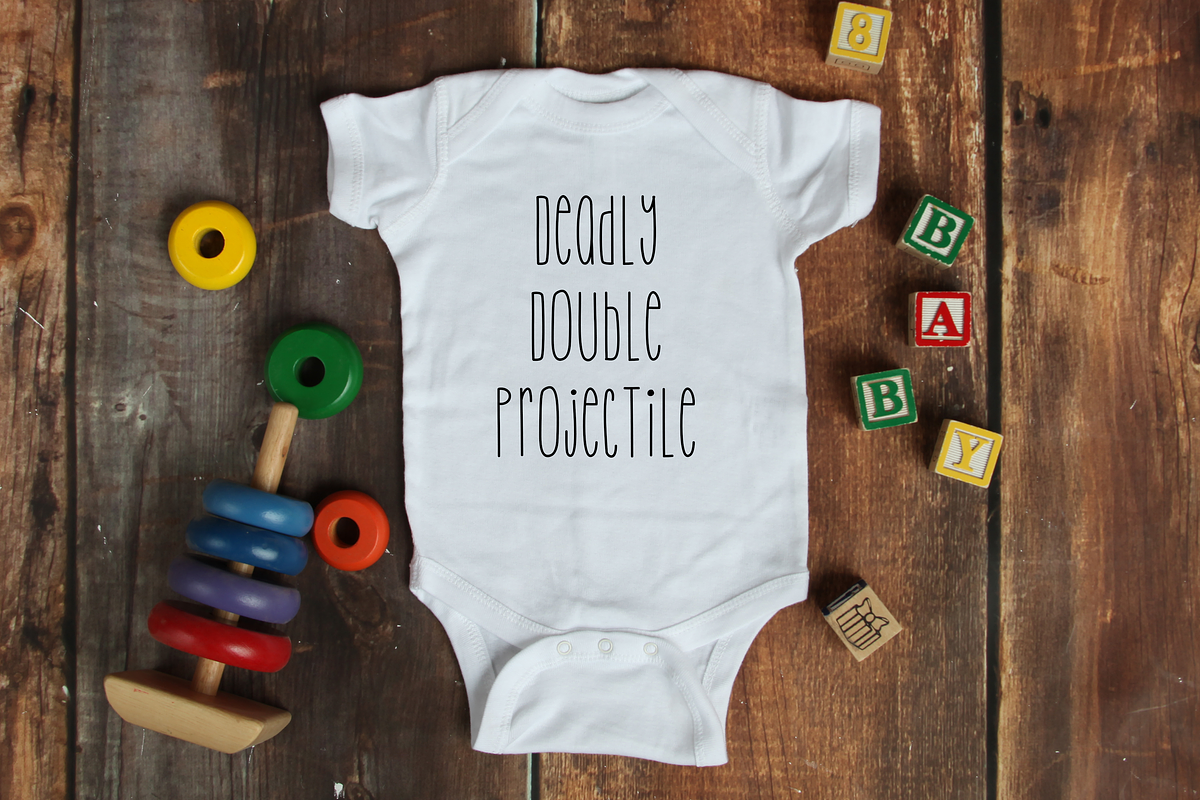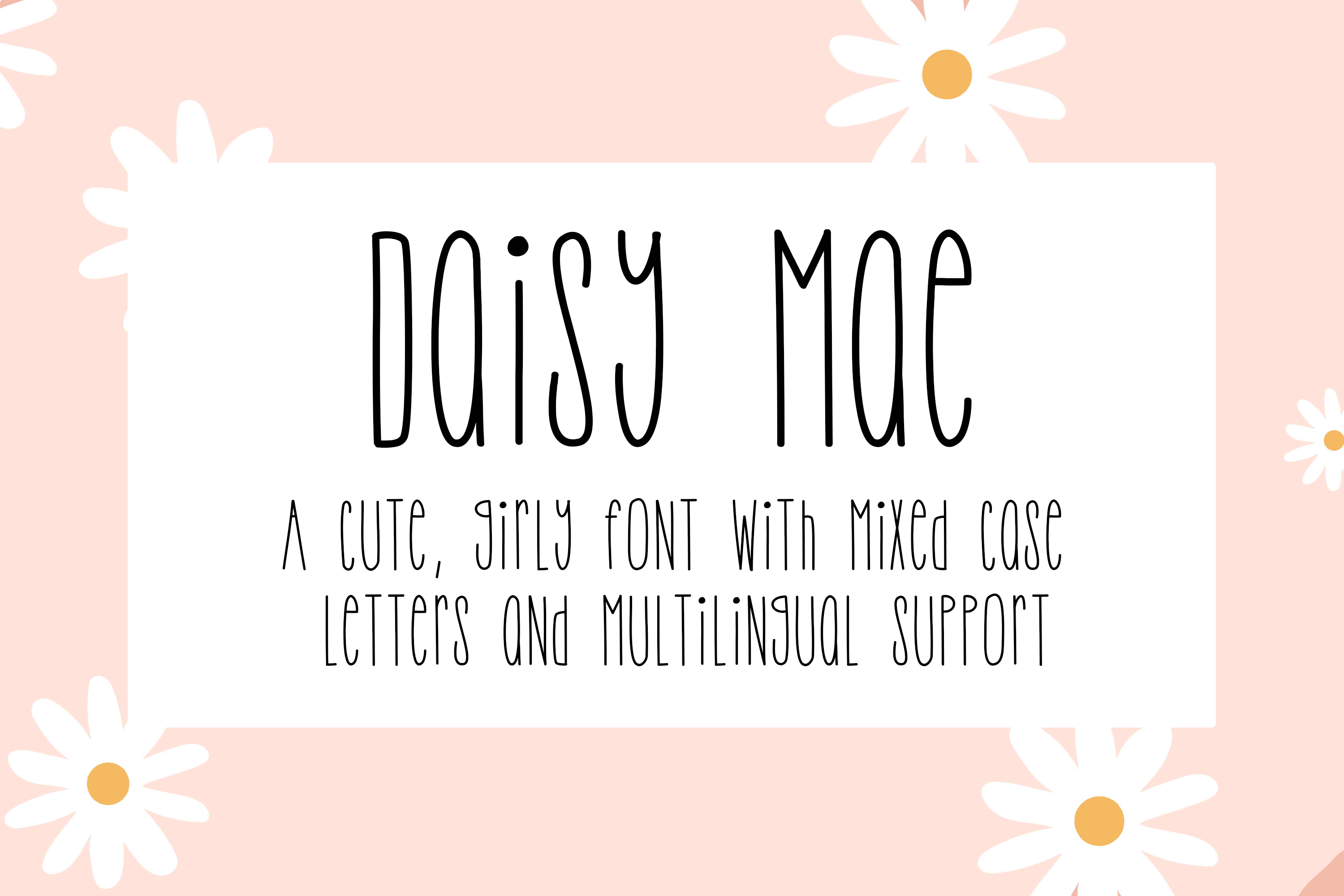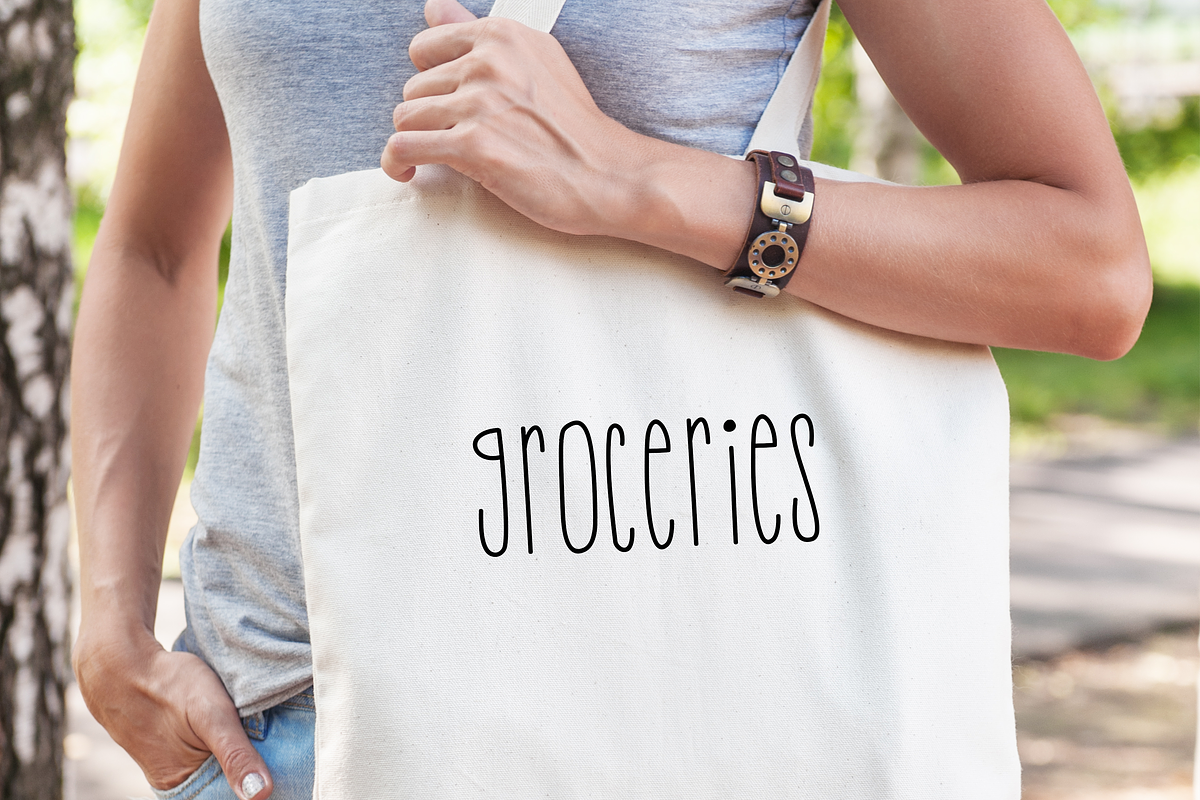
Daisy Mae | A cute, girly font
Daisy Mae is a fun, quirky feminine font with multilingual support and mixed-case letters that is perfect for:
- greeting cards
- invitations
- posters
- t-shirt designs
- SVG Designs And more...
- Uppercase Characters
- Lowercase Characters